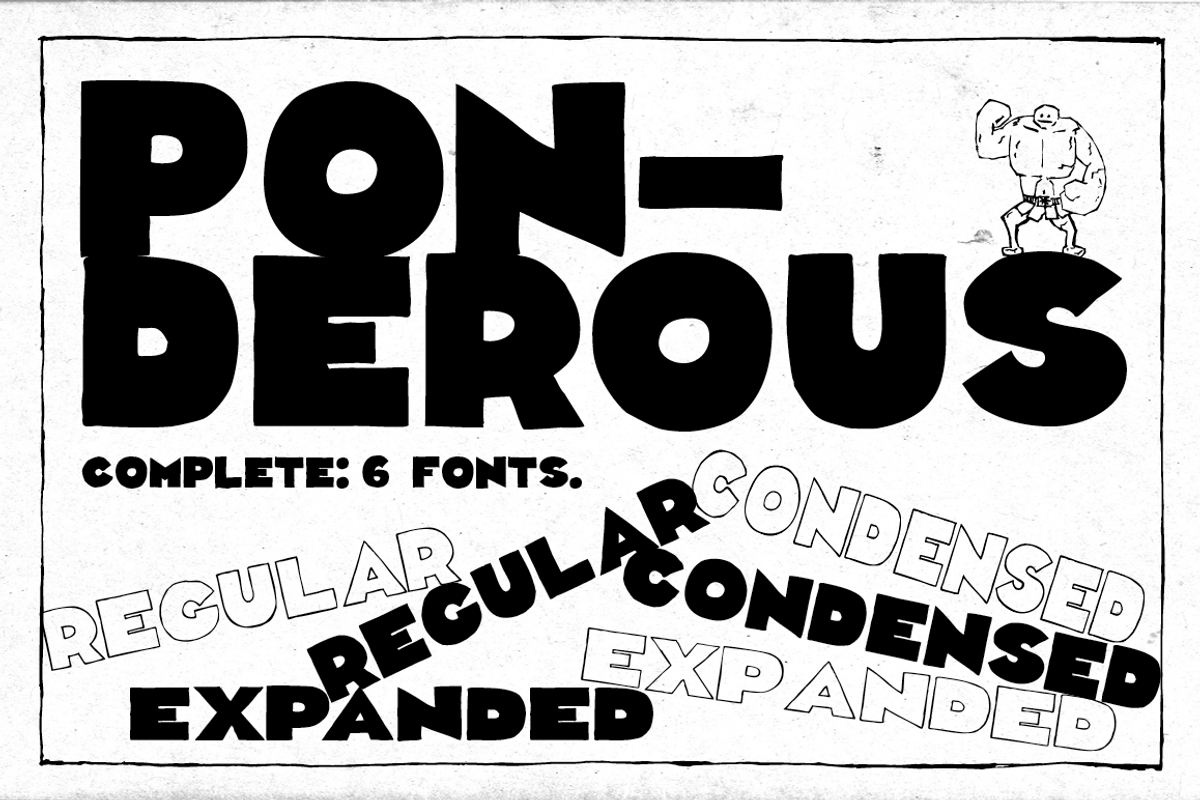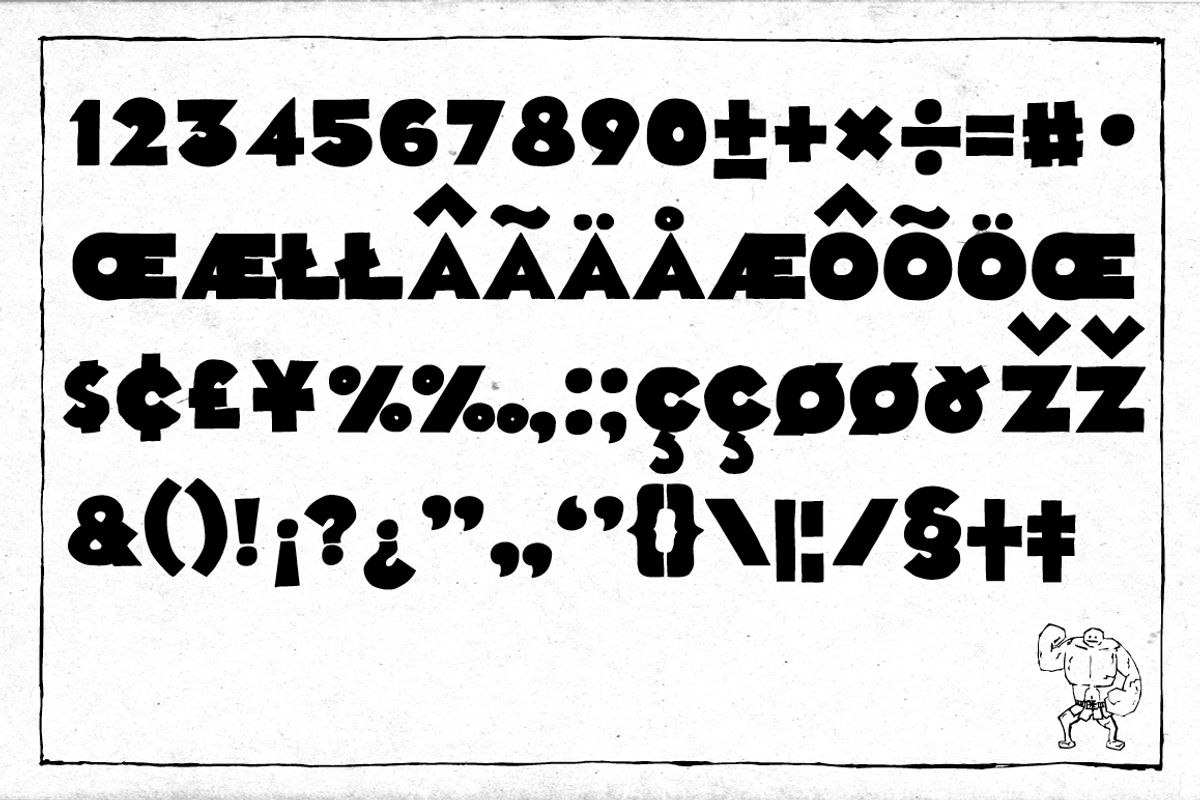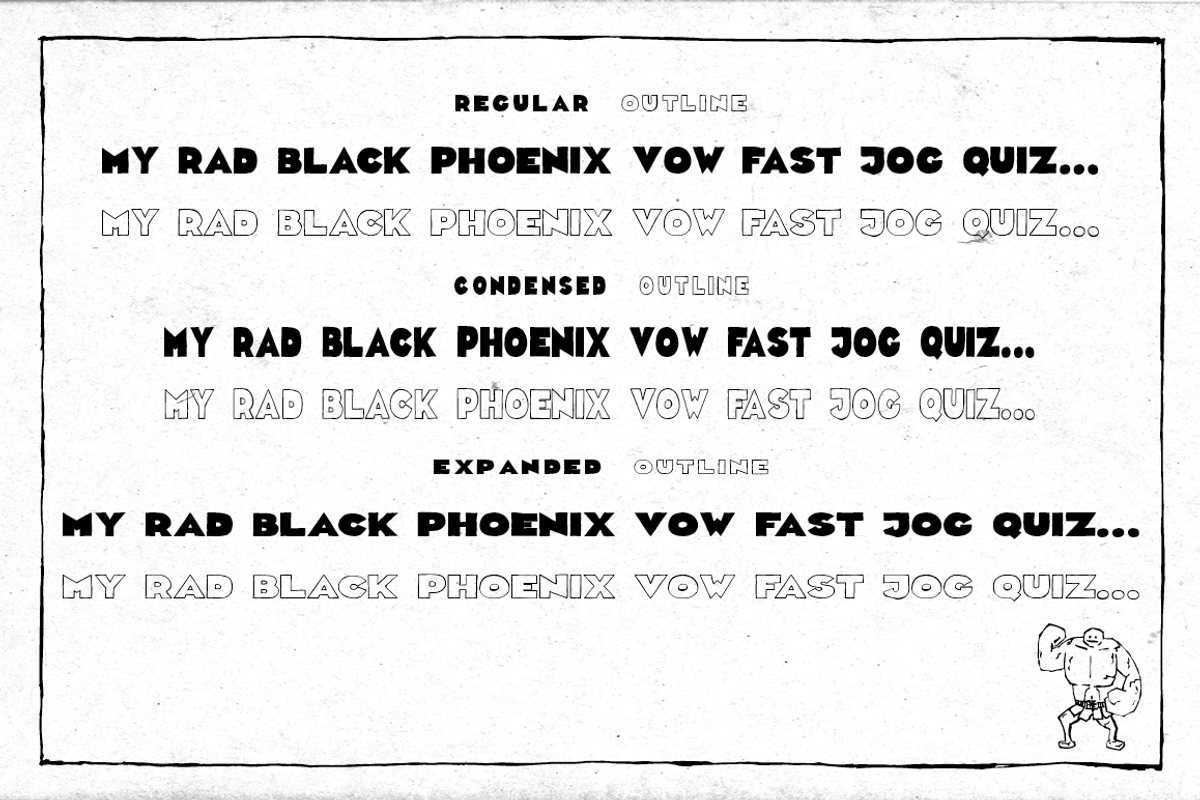
Ponderous - Complete - 6 fonts
Ponderous - Complete - 6 fonts by dawnland is a font selected for branding, posters, packaging, typography.
- Lowercase letters hold slightly altered versions of the uppercase letters for a trustworthy and hand drawn look!
- Ponderous Condensed-Outline
- Ponderous Expanded-Outline
- Ponderous Regular
- Ponderous Condensed
- Ponderous Expanded
- Ponderous Outline
Ponderous - Complete - 6 fonts by dawnland fits naturally into Branding, posters, packaging, typography.